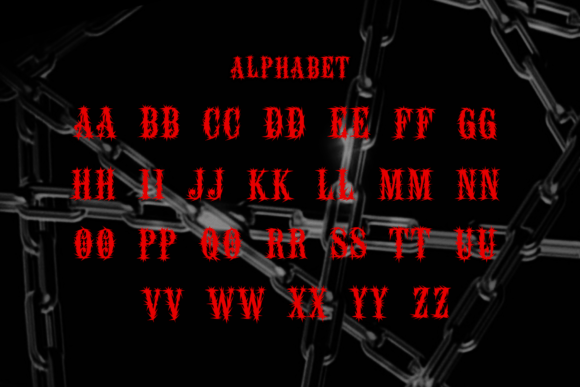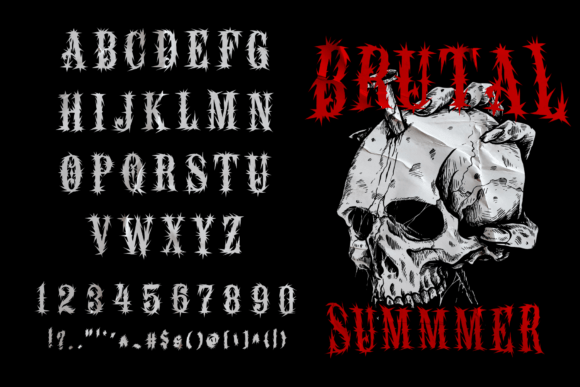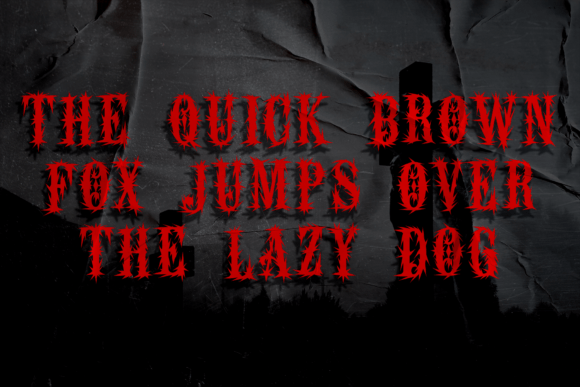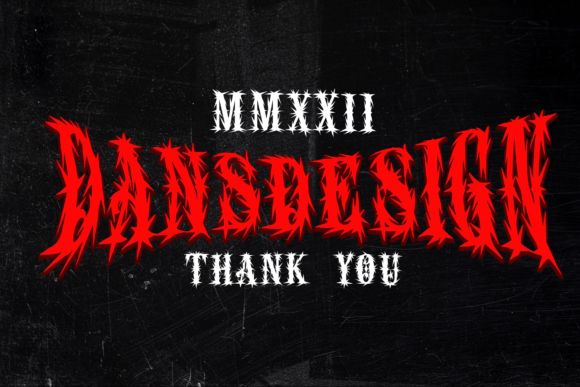
Introduction to Rotogrim Font
You know that moment when you’re working on a creative project and you need that one special element to bring it all together? Maybe it’s a bold logo, a striking headline, or a distinctive font that screams “I’m here to make a statement!” For designers, that moment often comes when we’re searching for the perfect font to match our vision. And that’s where the Rotogrim Font comes in – a game-changing blackletter font that will add a determined and confident touch to your work.
Whether you’re working on a high-profile branding project or a personal creative endeavor, the Rotogrim Font is a valuable resource that’s sure to elevate your design. With its unique style and high-quality design, it’s perfect for designers who want to add a touch of sophistication and edge to their work. And the best part? You can download it for free and use it on any project you like, even with a transparent background.
Honest Review: Rotogrim Font
As a designer, I’m always on the lookout for high-quality design resources that can elevate my creative projects. Recently, I stumbled upon the Rotogrim Font, and I’m excited to share my honest review with you.
What works well: ✨ The Rotogrim Font is a beautifully crafted font with a unique, gritty aesthetic. It’s perfect for adding a touch of edginess to your designs. The font is also highly versatile, making it suitable for a wide range of creative projects, from brochures to social media graphics.
What doesn’t work well: ⚠️ While the font is available for free download, it does come with a transparent background, which can be a bit tricky to work with, especially if you’re not familiar with design software. Additionally, the font may not be suitable for very small text sizes, as it can become difficult to read.
- Unique, gritty aesthetic
- Highly versatile
Overall, I’m impressed with the Rotogrim Font. While it may have a few limitations, its high-quality design and unique aesthetic make it a valuable addition to any designer’s toolkit. If you’re looking for a font that can add some grit and texture to your designs, I highly recommend giving the Rotogrim Font a try.
Designing with Rotogrim Font
The Rotogrim Font is a high-quality design resource that can elevate any creative project. This versatile font features a transparent background, making it perfect for use on various backgrounds and designs.
Common Use Cases for Rotogrim Font
The Rotogrim Font is commonly used in:
Business presentations and reports.